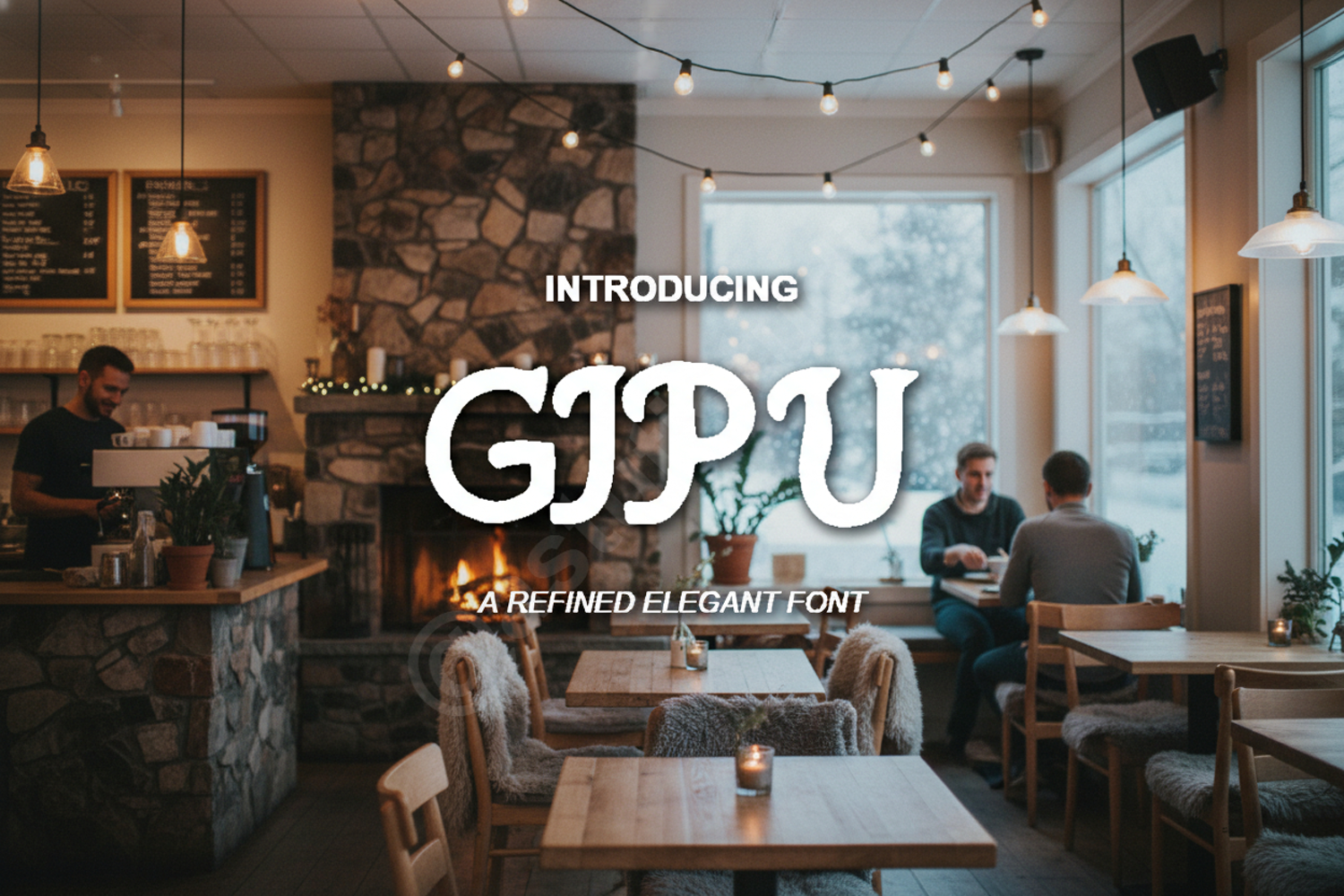
Gipu - Modern Minimalist Sans Serif Typeface
Gipu
Gipu is a premium, high-quality typeface meticulously crafted to bring modern elegance and superior legibility to your creative projects. With its clean lines and balanced geometric proportions, Gipu offers a sophisticated aesthetic that stands out in both digital and print media. This font is designed for creators who value precision and versatility in their typographic toolkit.
- Full set of uppercase and lowercase letters
- Numbers and essential punctuation
- Extensive multilingual support for global accessibility
- Branding and Identity: Create memorable logos and cohesive brand systems.
- Editorial Design: Perfect for high-end magazines, lookbooks, and corporate reports.
- Web Design: Ensure crisp readability for headers and user interface elements.
- Marketing Materials: Enhance social media graphics, posters, and advertisements.
- Wedding and Event Stationery: Add a touch of contemporary class to invitations and signage.